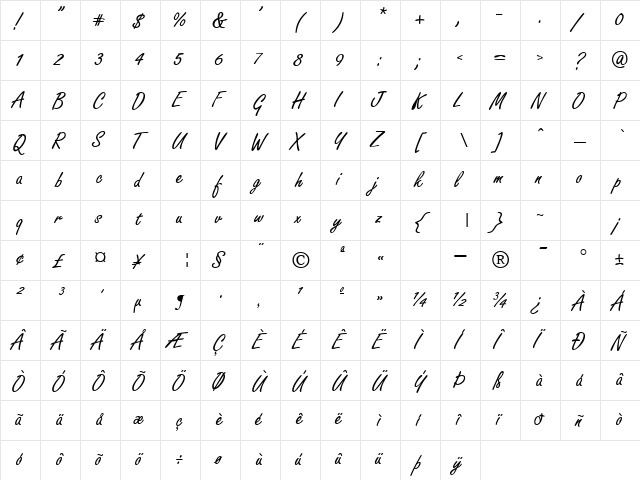
GE Freelancer Regular
Design Context for GE Freelancer Typeface
GE Freelancer is a composed and adaptable typeface that performs quietly and consistently across a wide range of design contexts.